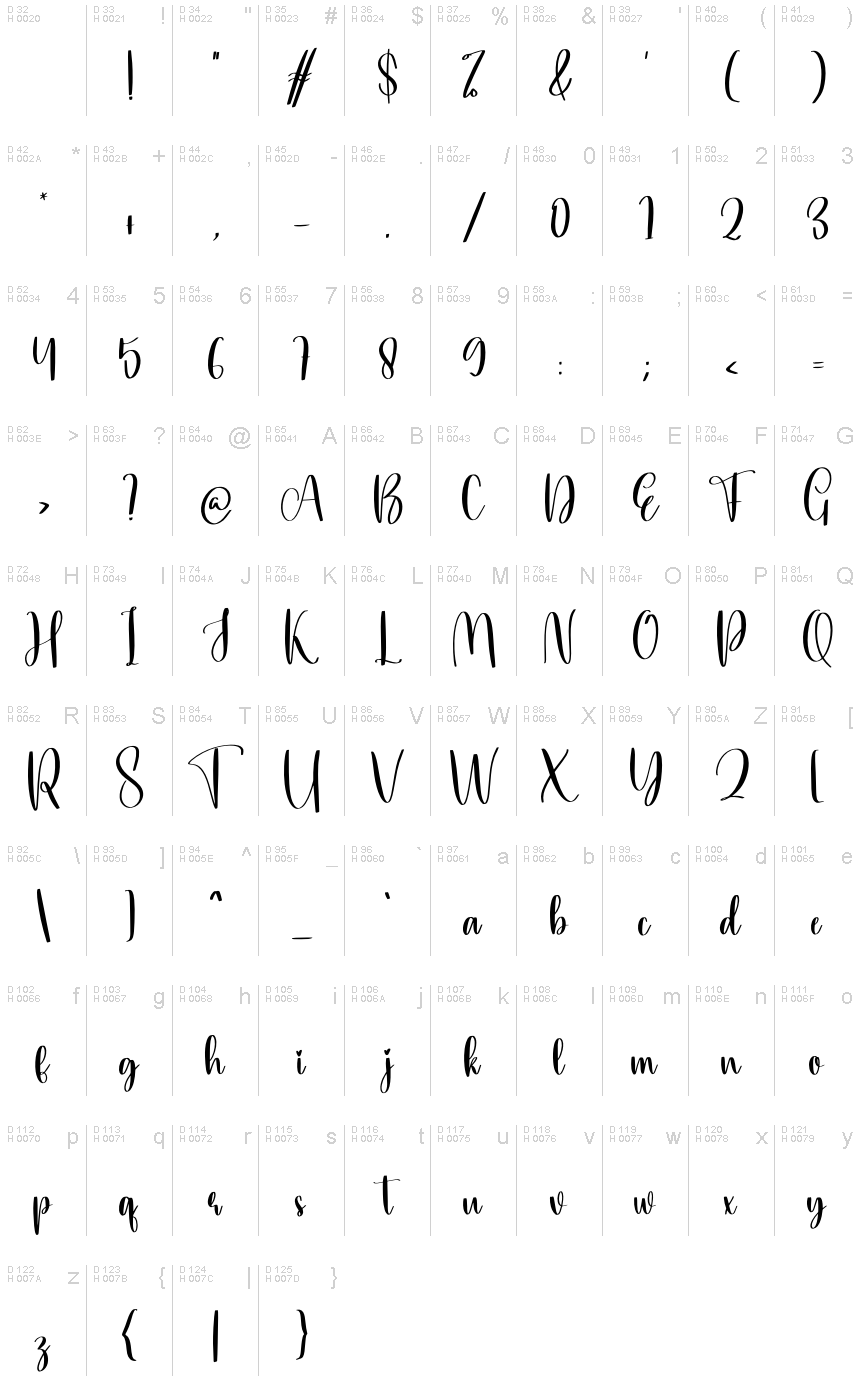
Delft
Delft font by Scratchones is an elegant, freely flowing script with a smooth and sophisticated flair. The lively and artistic letters have graceful curves that give the text life and a feeling of beauty. The style is effortlessly elegant, distinguished by clean lines, which adds to this font’s overall attractiveness.
Thanks to its contemporary design, this premium free font will produce a spectacular effect in any setting. Combine it with your branding design ideas, ad campaigns, wedding stationary invitations or non-invitations!